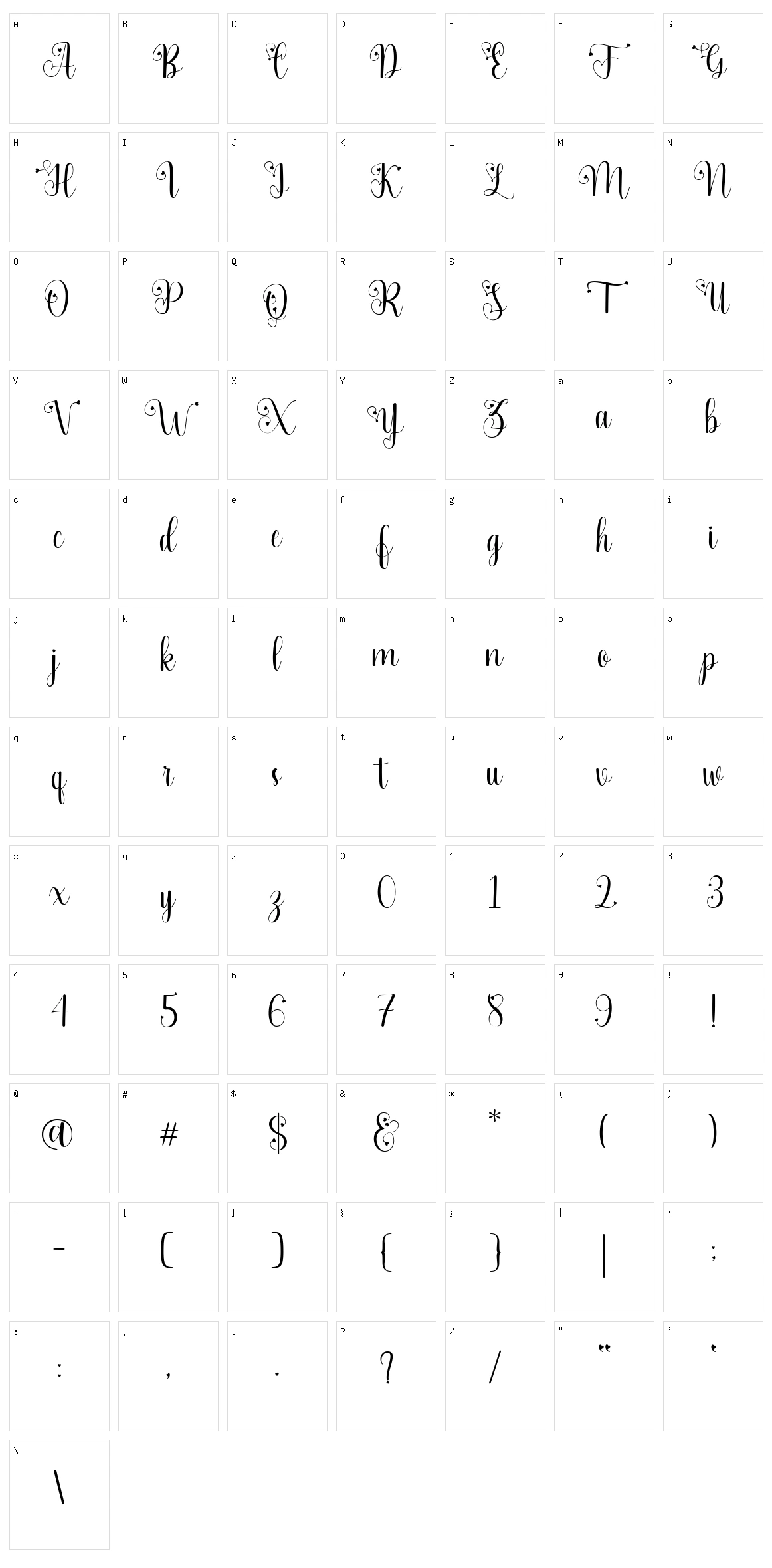
The free font Hanifah is carefully designed by OCSstudio, showcasing a thoughtful balance of creativity and usability and falls under the Valentine font style. When you download the ZIP file, it contains only 31.32 KB of font files, making it lightweight and quick to download. Please review the license details below to understand permitted usage and distribution rights. If license information is not available, we recommend using this font for personal projects only or contacting the author directly for commercial usage permissions.